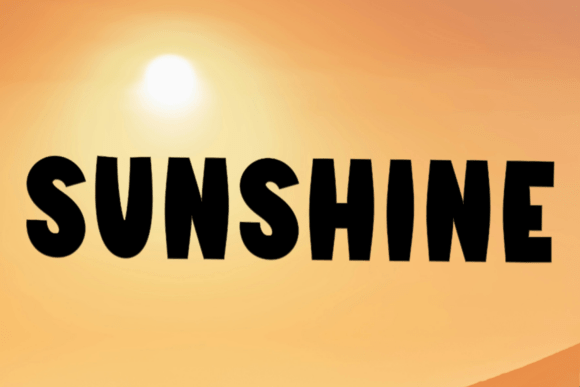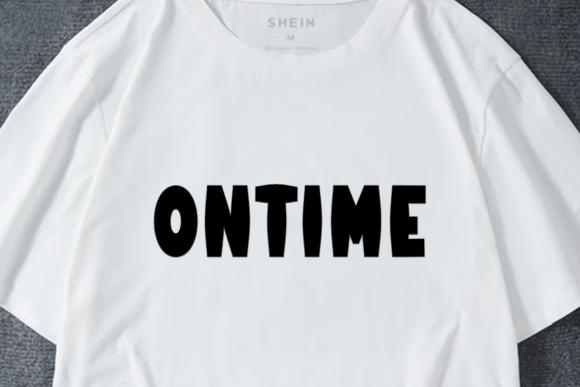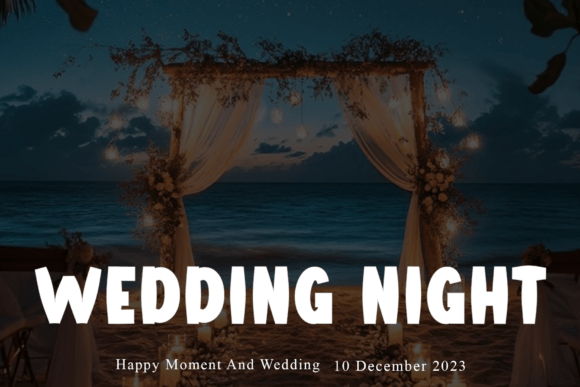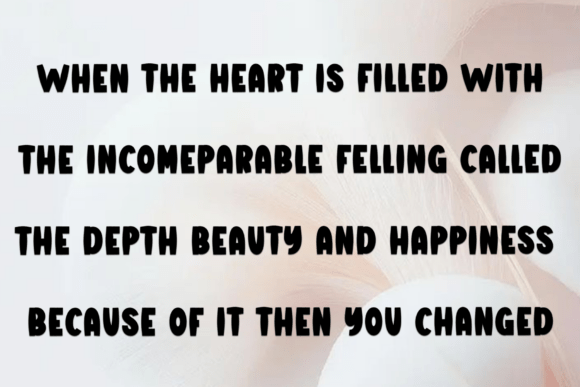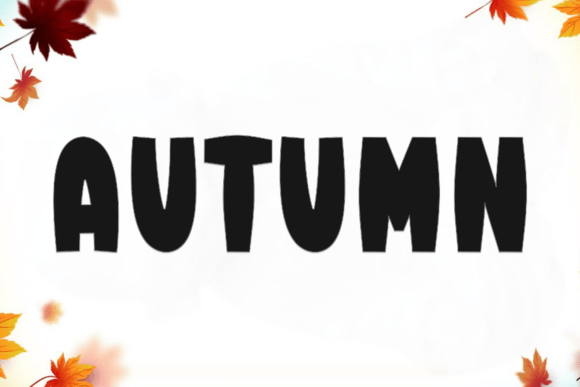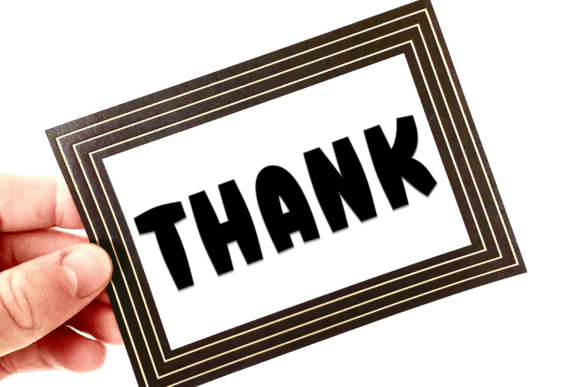
The Magic of the Beach Ball Font: Adding Whimsy to Your Designs
Do you remember the excitement of unwrapping presents on a snowy winter morning, or the joy of sending out holiday cards to loved ones? For many of us, the holiday season is a time of warmth, love, and connection. As a designer, you can capture this essence in your work with the perfect font – the Beach Ball Font.
This festive and merry typeface is a perfect match for greeting cards, gift tags, and holiday-themed projects. With its decorative elements and whimsical flair, the Beach Ball Font adds a touch of enchantment to your designs, making them truly special. As a valuable tool for designers, it brings a cheerful and nostalgic ambiance to your words, making it a must-have for any holiday project.
With the Beach Ball Font, you can let your typography shine with the magic of the season. And with its PUA encoded features, you can easily access all the amazing glyphs and ligatures to make your designs truly unforgettable.
- Unique Characteristics: Beach Ball Font features a playful, rounded design with a soft, beachy feel, making it ideal for beach-themed designs, children’s products, and casual graphics.
Beach Ball Font Review
Overall, I think the Beach Ball Font is a fun and playful addition to any design project. Here are some things that work well:
- ✨ Unique, rounded shapes give the font a beachy vibe
- ✨ Good legibility, even at smaller font sizes
- ✨ Can add a whimsical touch to any design
- ⚠️ May not be suitable for formal or professional projects
- ⚠️ Limited character set, which can make it difficult to use for longer text
- ⚠️ Some characters may not render correctly in certain font sizes or styles
Overall, I think the Beach Ball Font is a great choice for designers who want to add a bit of fun and personality to their projects. While it may not be suitable for every project, it’s definitely a great option for those looking to create a playful or whimsical design. With a little creativity and planning, I think this font can really shine.
Getting the Most Out of Beach Ball Font
For best results, use Beach Ball Font in bold, playful designs such as invitations, social media graphics, and party decorations. You can also use it to add a touch of whimsy to headings and titles.
Beach Ball Font is commonly used for:
- Summer-themed designs
- Children’s party invitations
- Fun and playful graphics
Alternatives to Beach Ball Font for Designers
The Beach Ball Font is a sans-serif font known for its rounded and playful look. However, there are other alternatives that can achieve a similar effect with slight variations. Here are a few options for designers:
Open Sans is a clean and modern sans-serif font that is highly legible. It has a slightly more geometric look than Beach Ball Font but can still be used for playful and creative projects. Open Sans is a versatile font that can be used for body text, headings, and titles.
Comparison: Open Sans is more geometric and formal than Beach Ball Font, making it a better choice for professional and corporate designs.
Lato is a sans-serif font with a modern and elegant look. It has a similar rounded feel to Beach Ball Font but with a more sophisticated and refined appearance. Lato is a great choice for designs that require a clean and professional look.